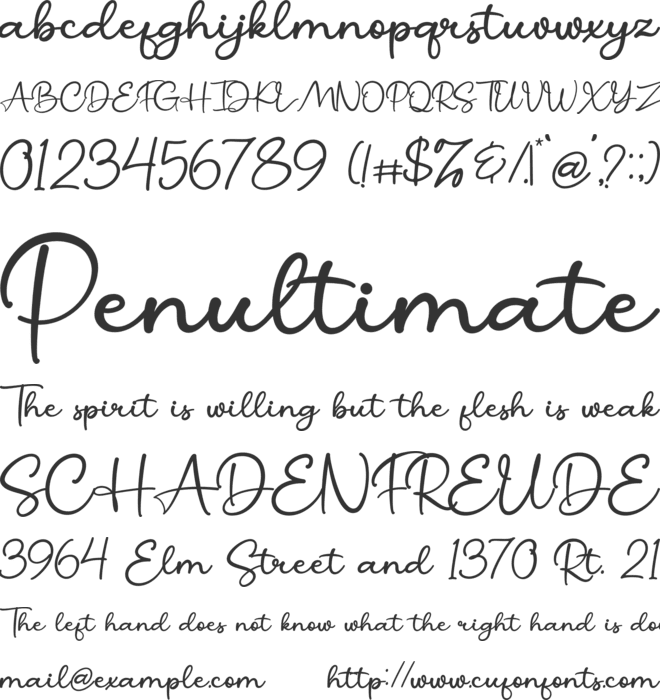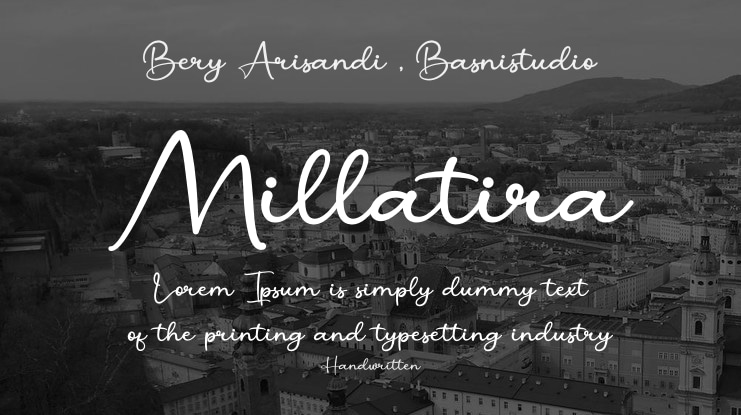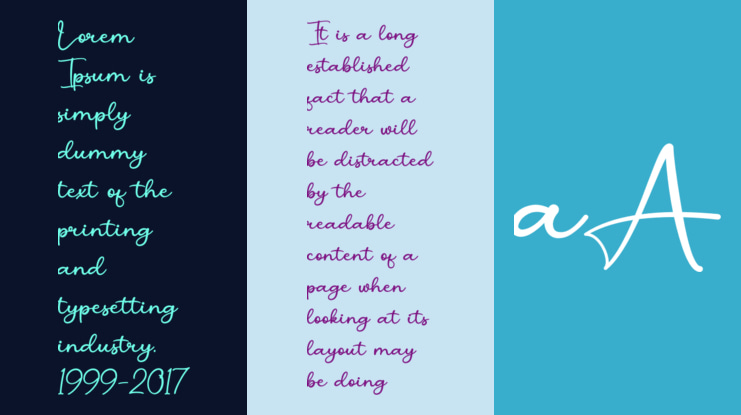
Millatira Font
INTRODUCING Millatira Elegant Script Font
Millatira Elegant Script Font that adds a elegant, versatile touch to everything from branding and social media to invitations and packaging.